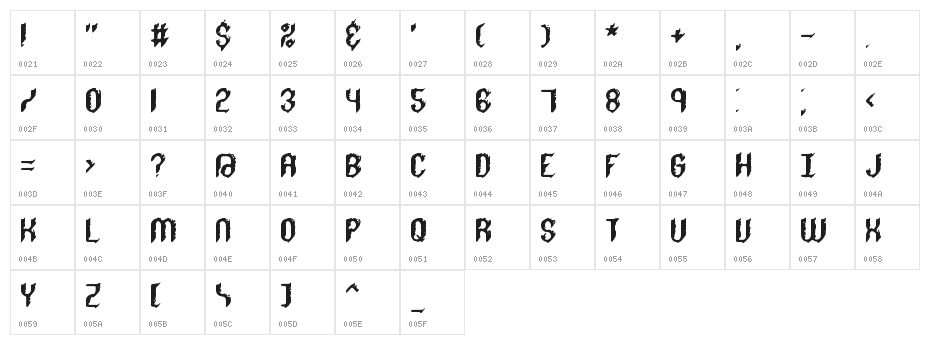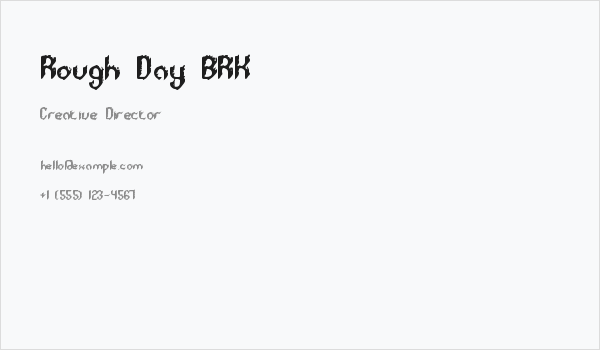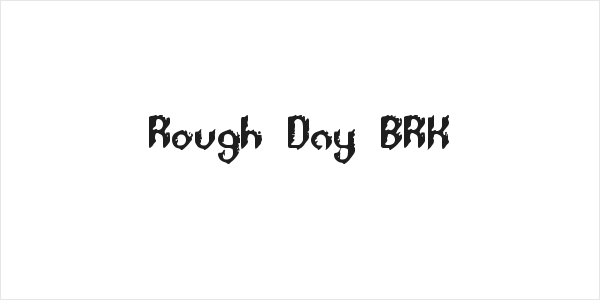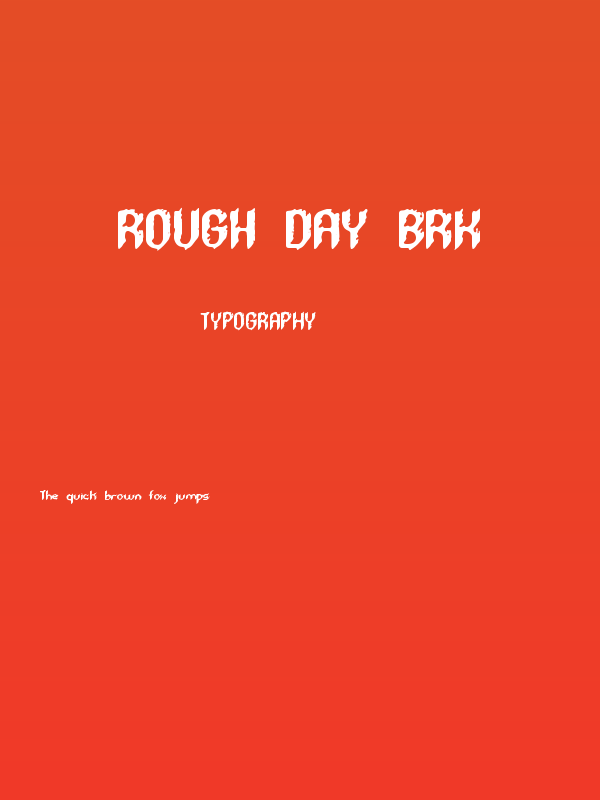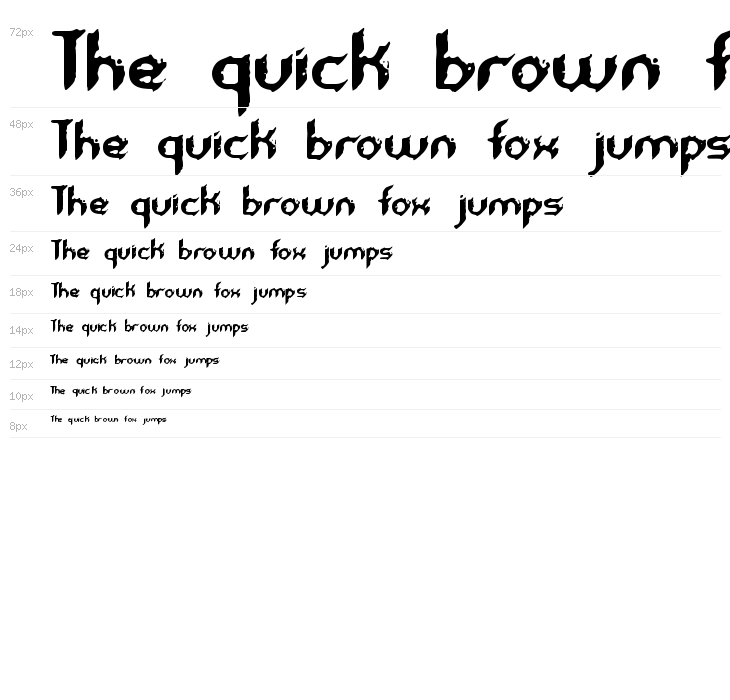
Rough Day BRK Font
Rough Day BRK Description
This font features a rugged and distressed appearance, with each character exhibiting a rough, textured edge that gives it a weathered look. The uppercase and lowercase letters maintain a consistent style, with bold strokes and uneven edges that suggest a hand-crafted or eroded effect. The numerals and special characters follow the same design, ensuring uniformity across all elements. This font's unique style is reminiscent of grunge or urban themes, making it suitable for projects that require a bold, impactful visual statement. The overall aesthetic is both edgy and artistic, capturing attention with its distinctive, worn-out look.
| Overall Style | Grunge, Urban, Artistic |
| Use Case | Headlines, Posters, Artistic designs |
| Proposed Projects | Ideal for album covers, posters, urban-themed designs, and any project needing a grunge or edgy aesthetic. |